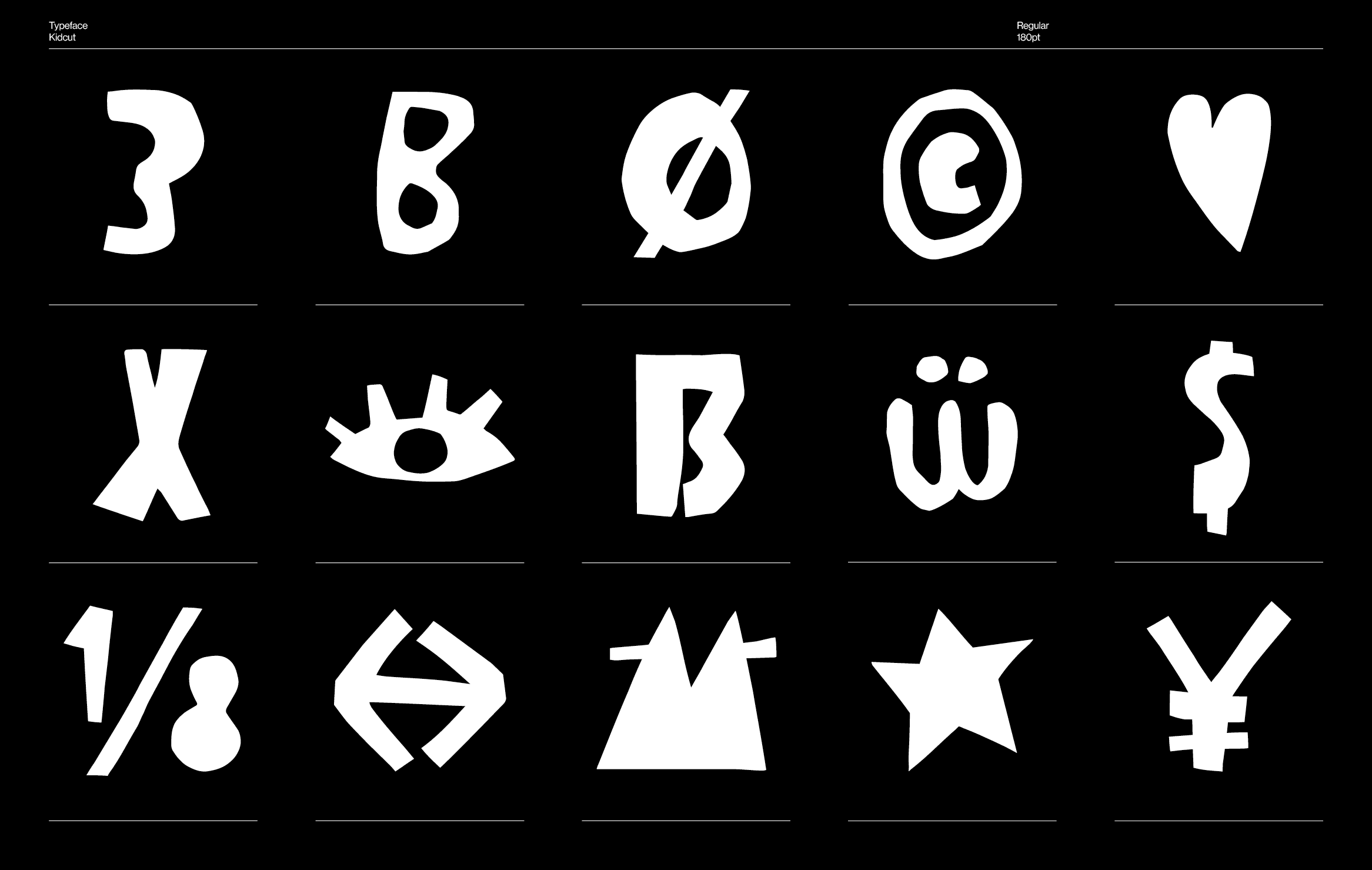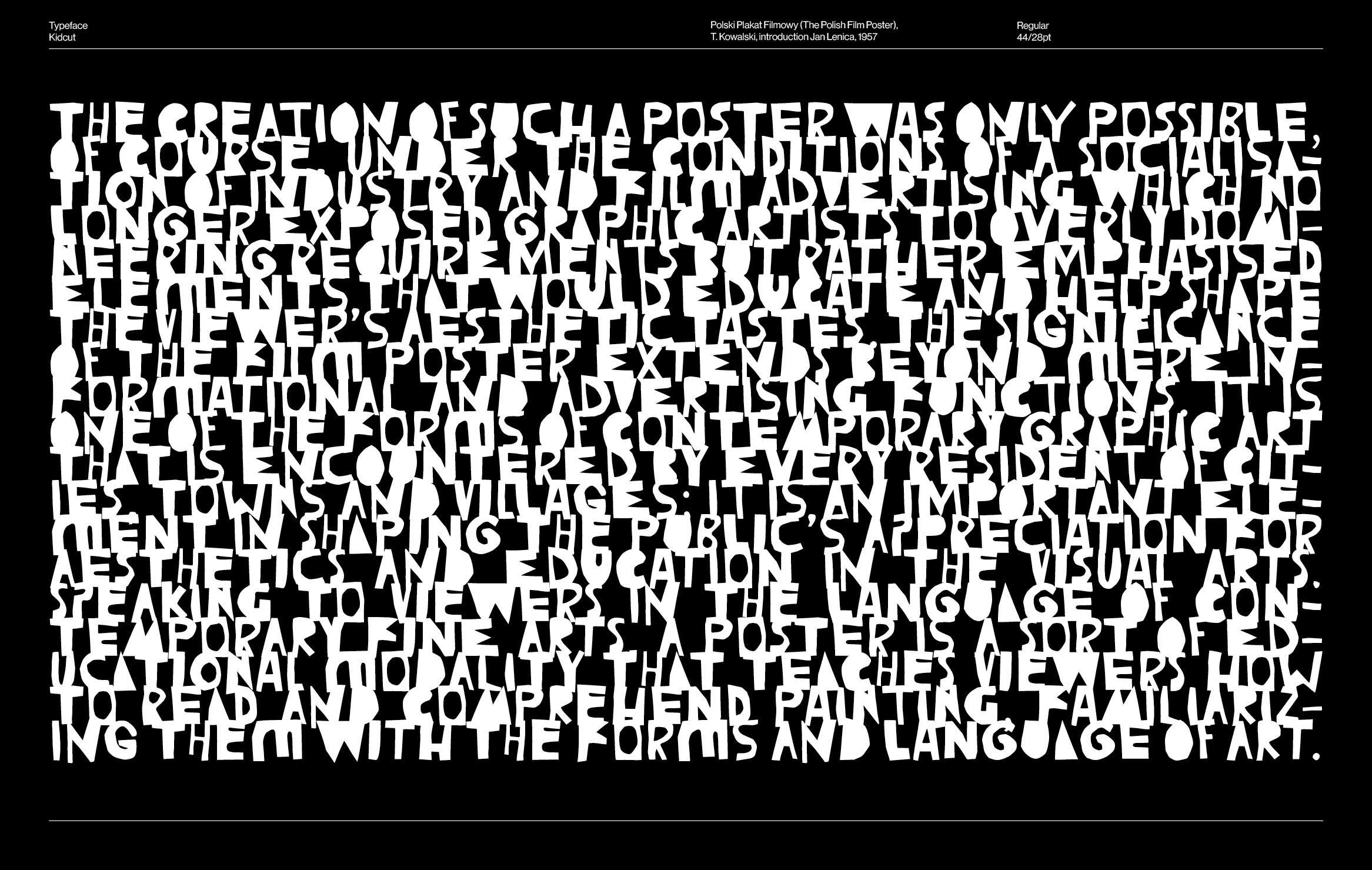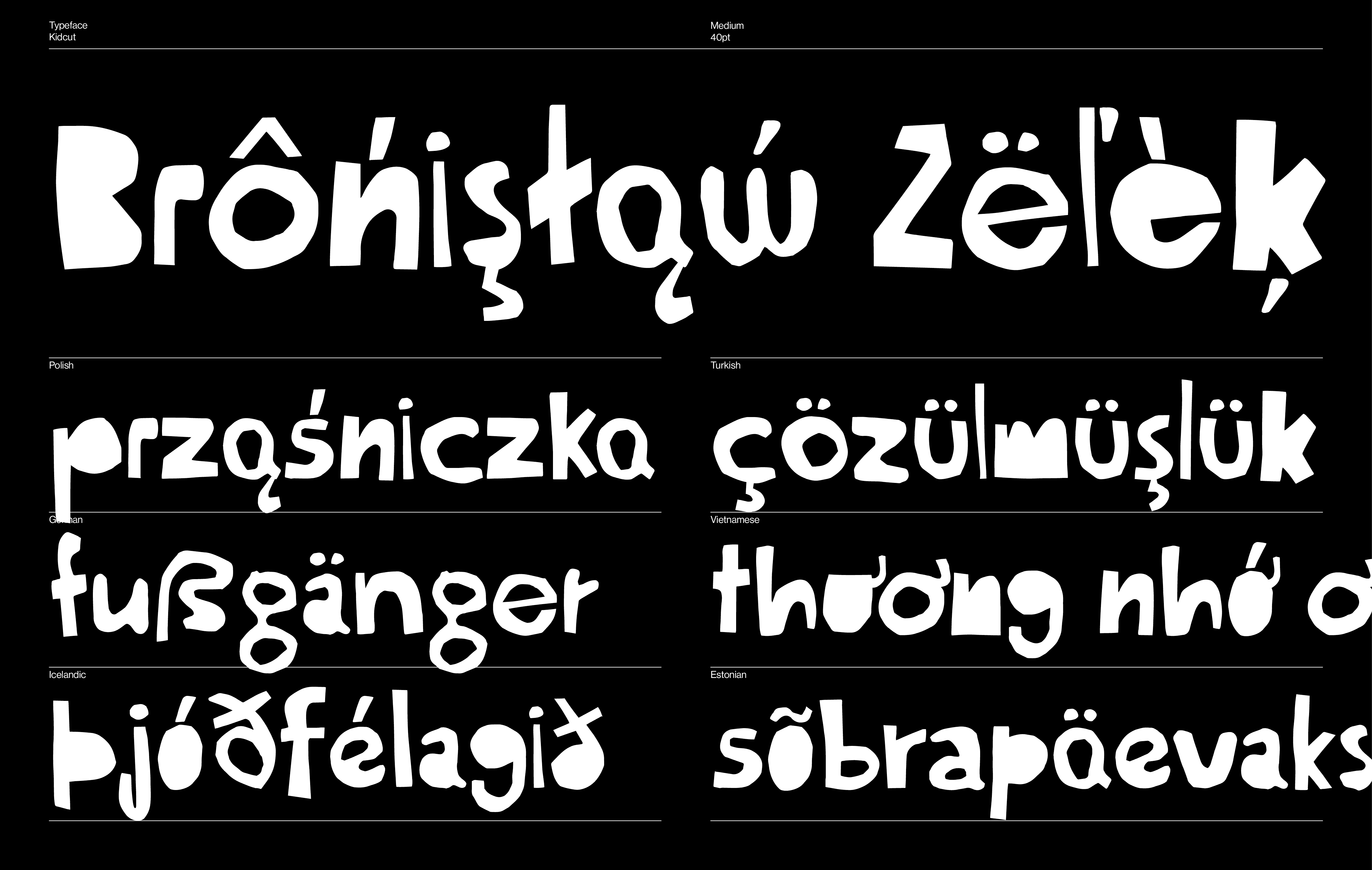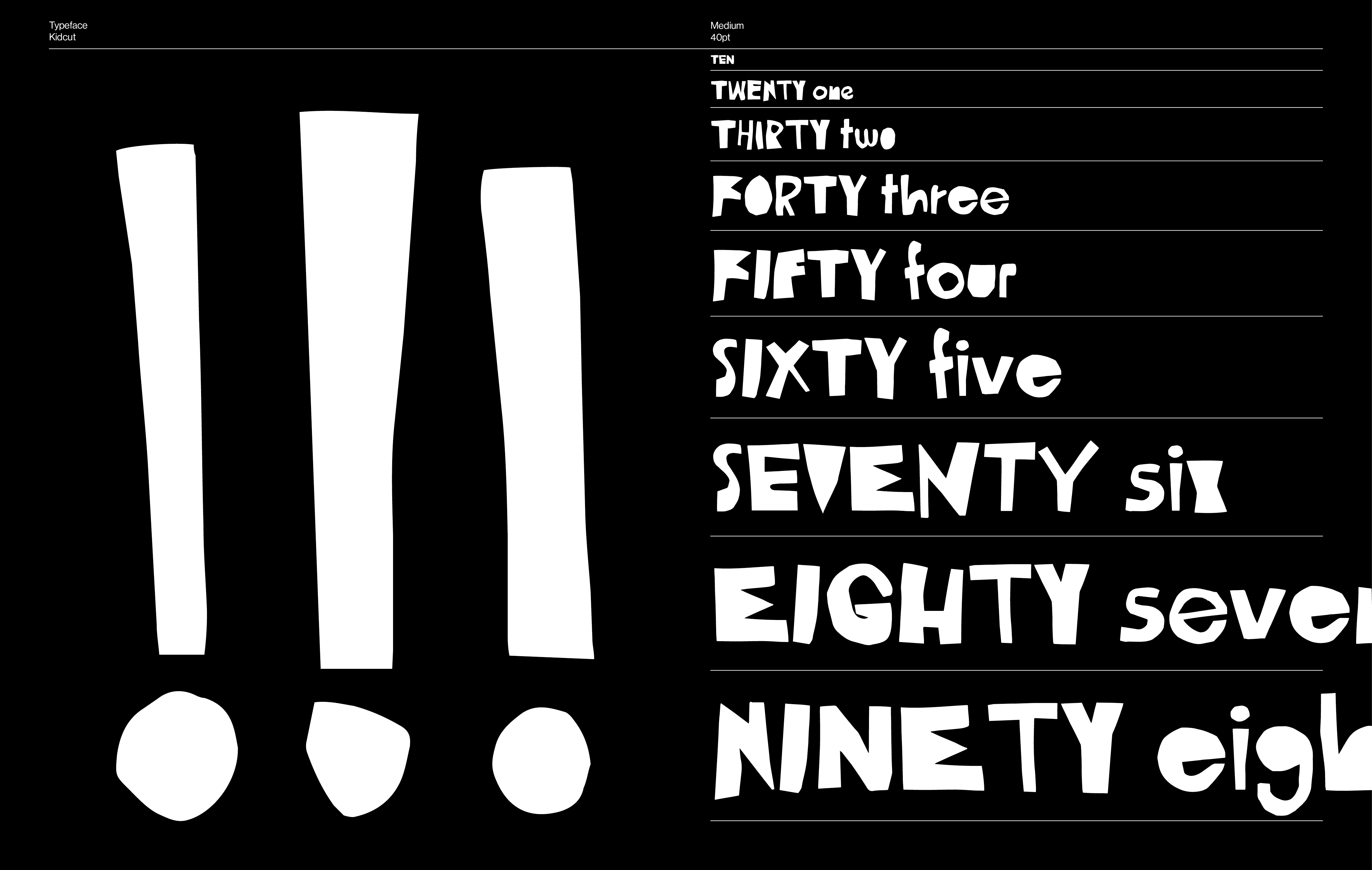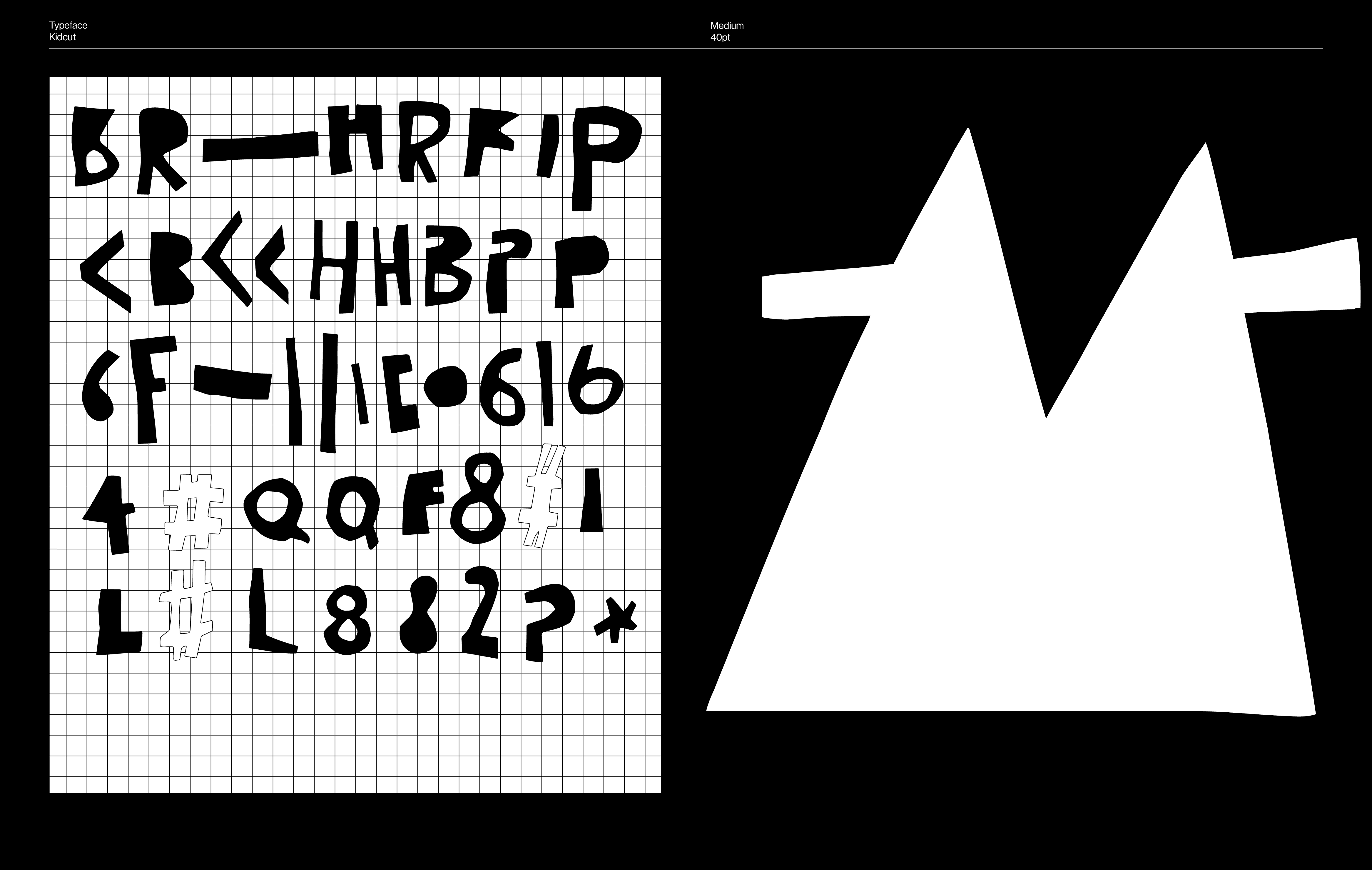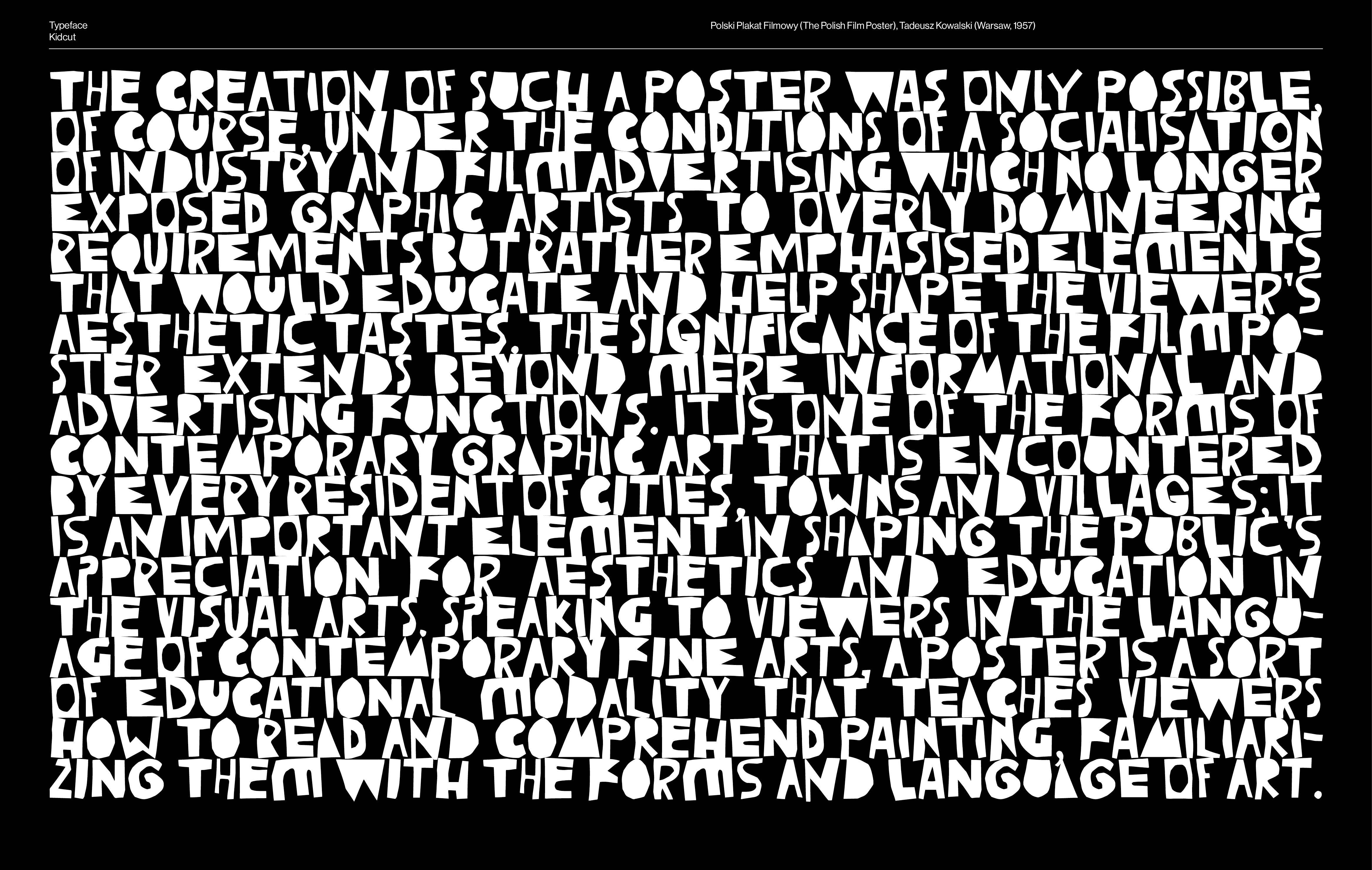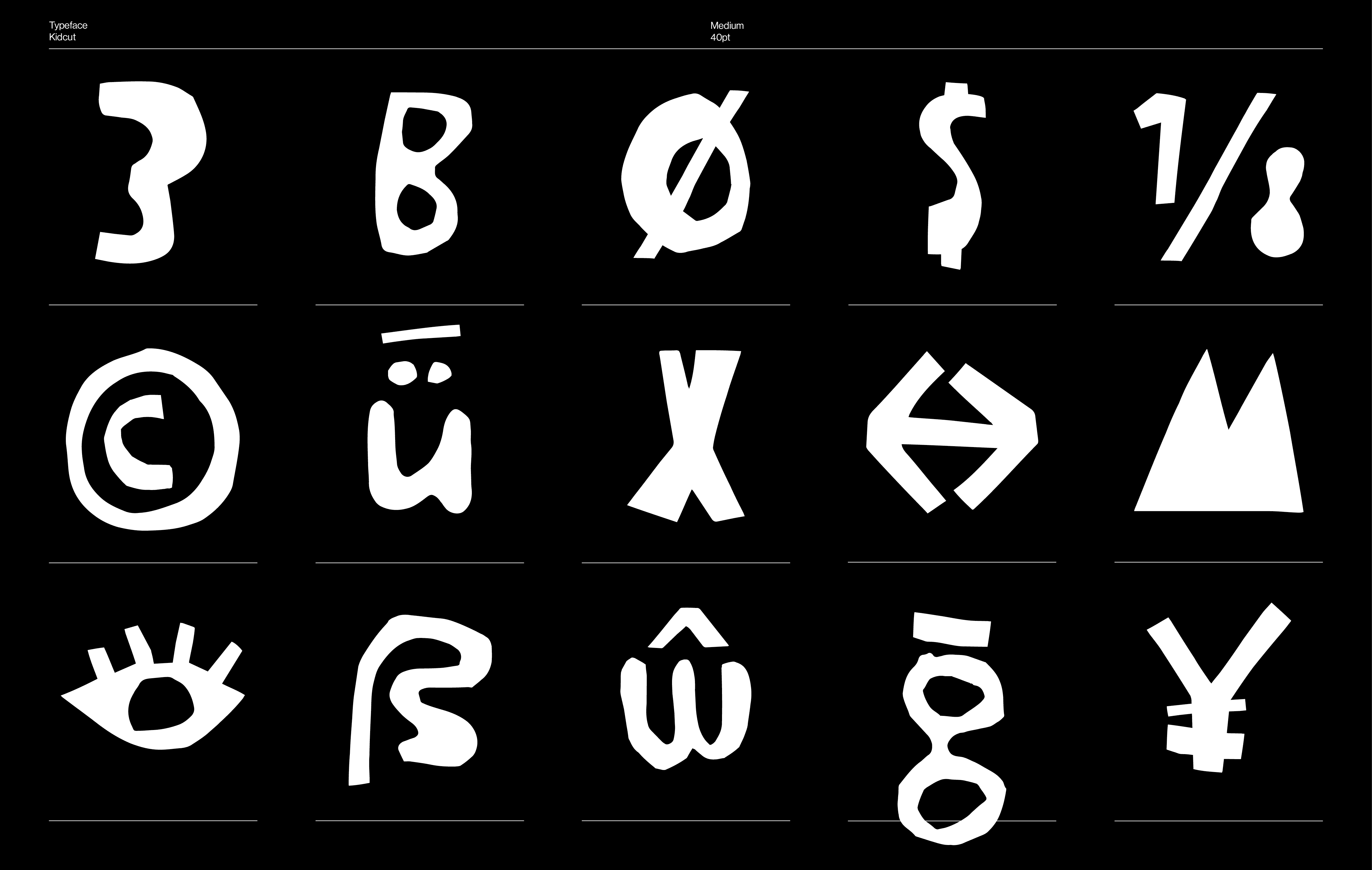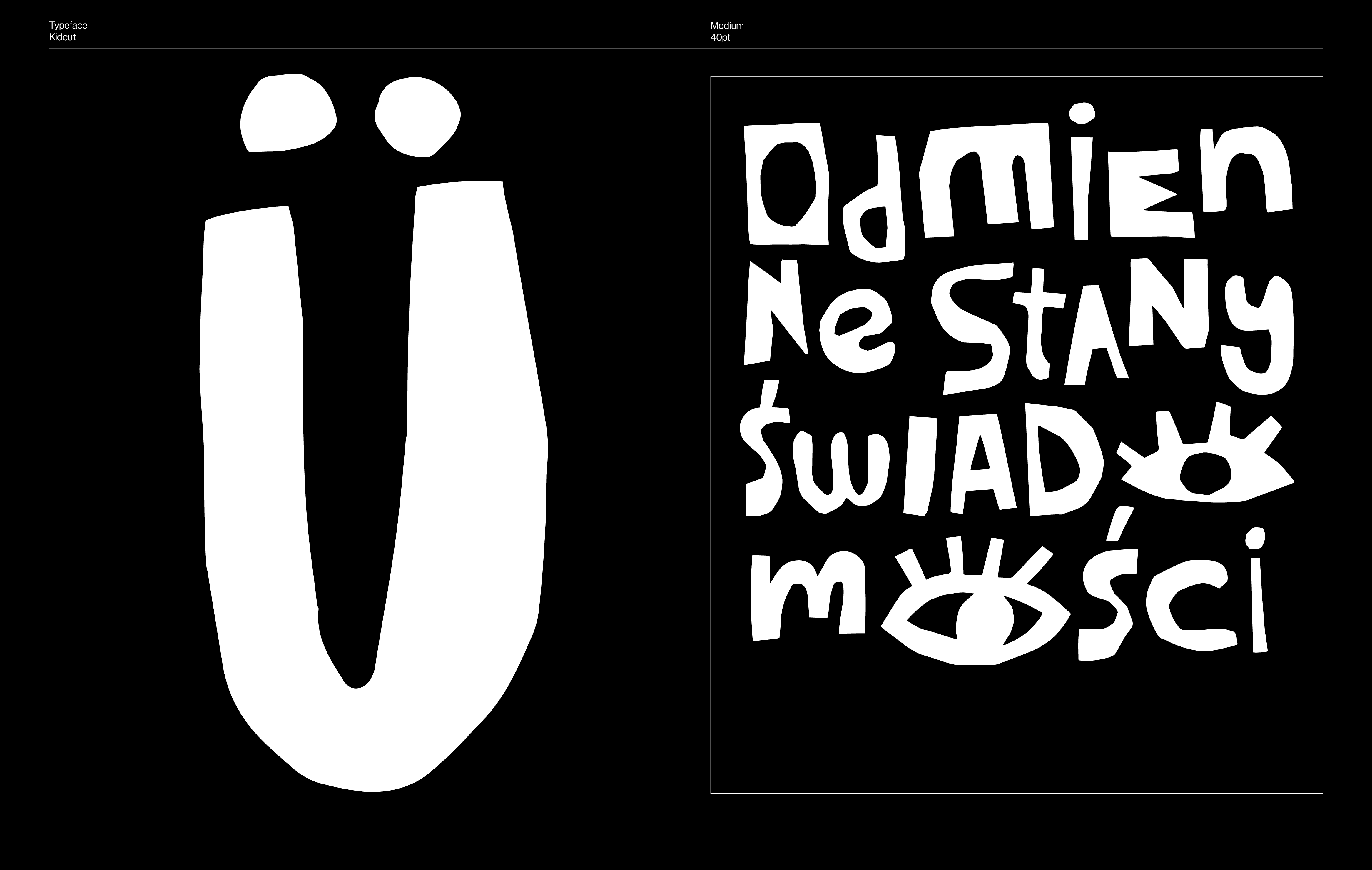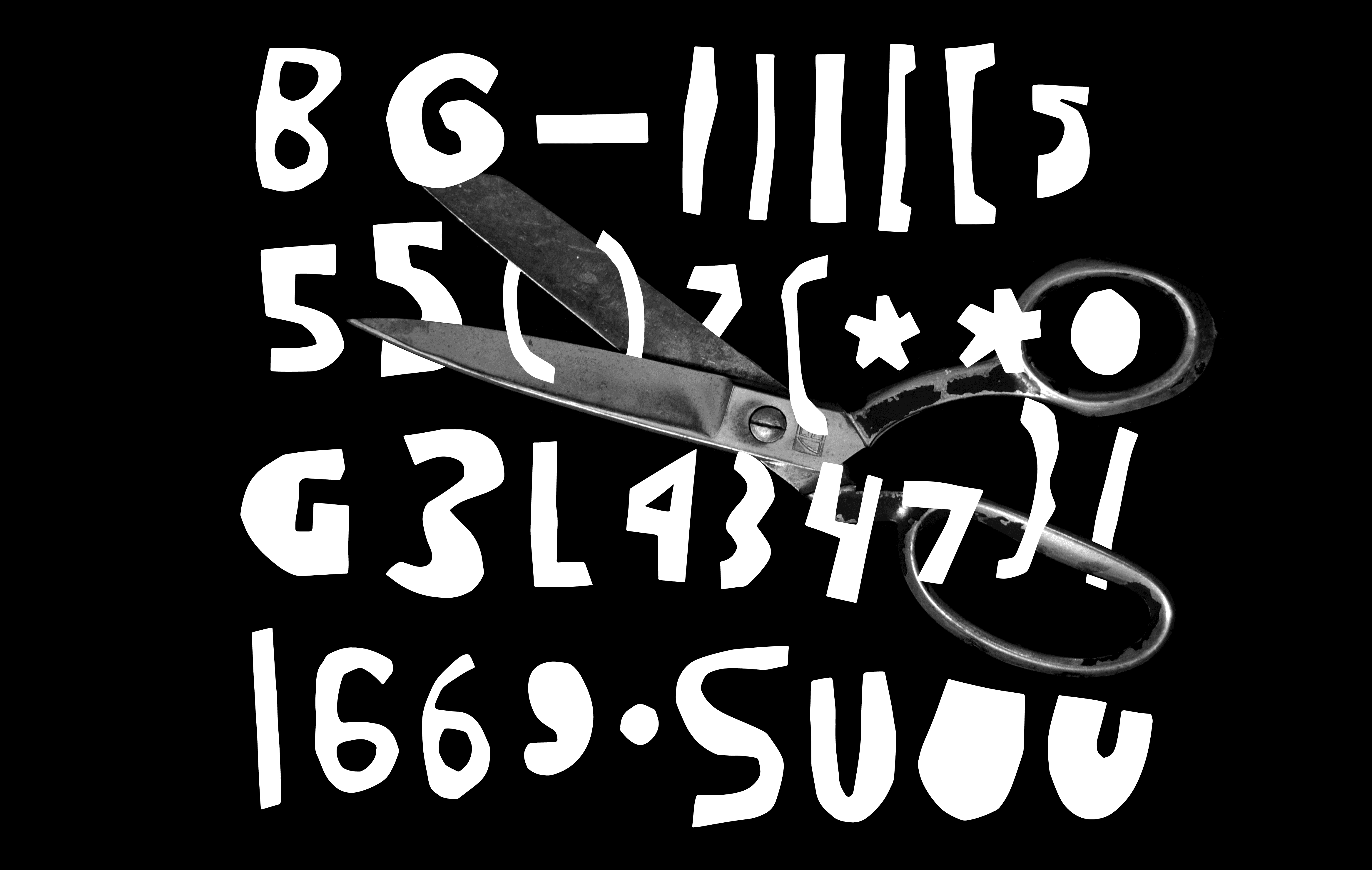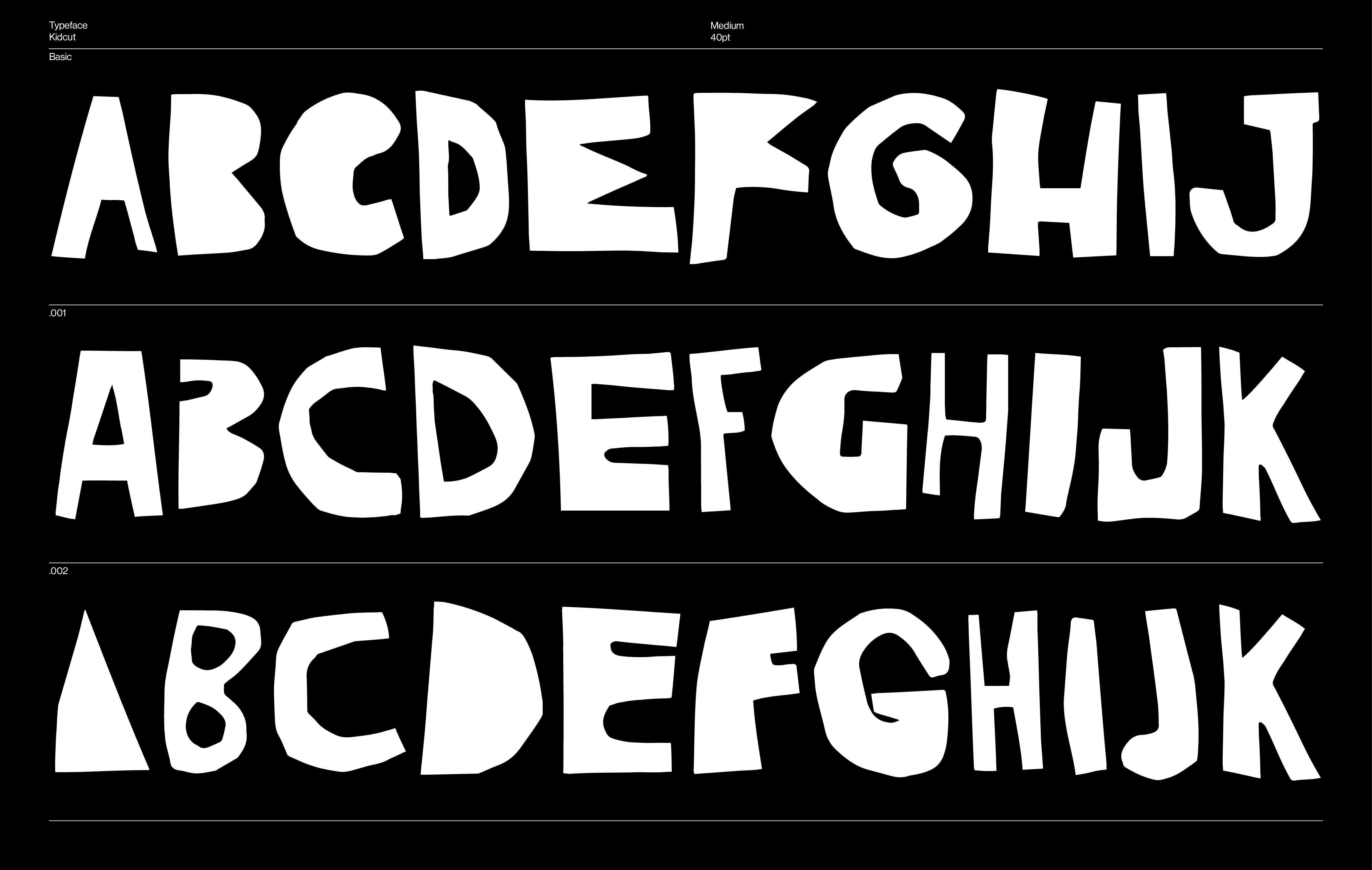
Kidcut
Kidcut is a typeface inspired by the lettering of Polish School of Poster masters — such as Henryk Tomaszewski or Jan Młodożeniec. The letters were cut from paper with scissors — irregular, clumsy, as if made by a child's hands. Every glyph comes in three versions: when the same character appears more than once in a word or sentence, it is automatically replaced by a contextual alternate — so the text never looks like a repeated template. And there are a few surprises hiding inside — a heart, a star,  or an open and closed eye. Includes Latin script with language support.